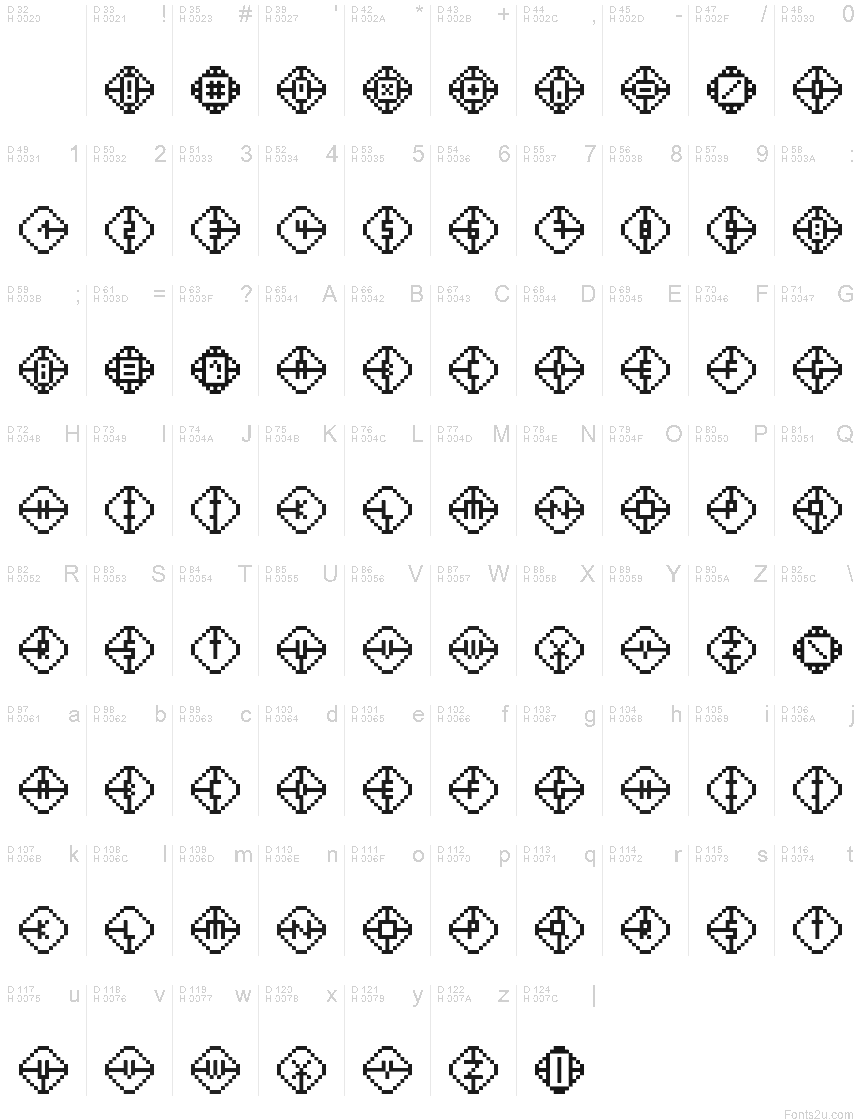
LosPix
Lospix is a pixel-art font.
The initial idea was to create a pixel-by-pixel font.
I then got the idea that the letters were linked to a frame and that gave this writing font.